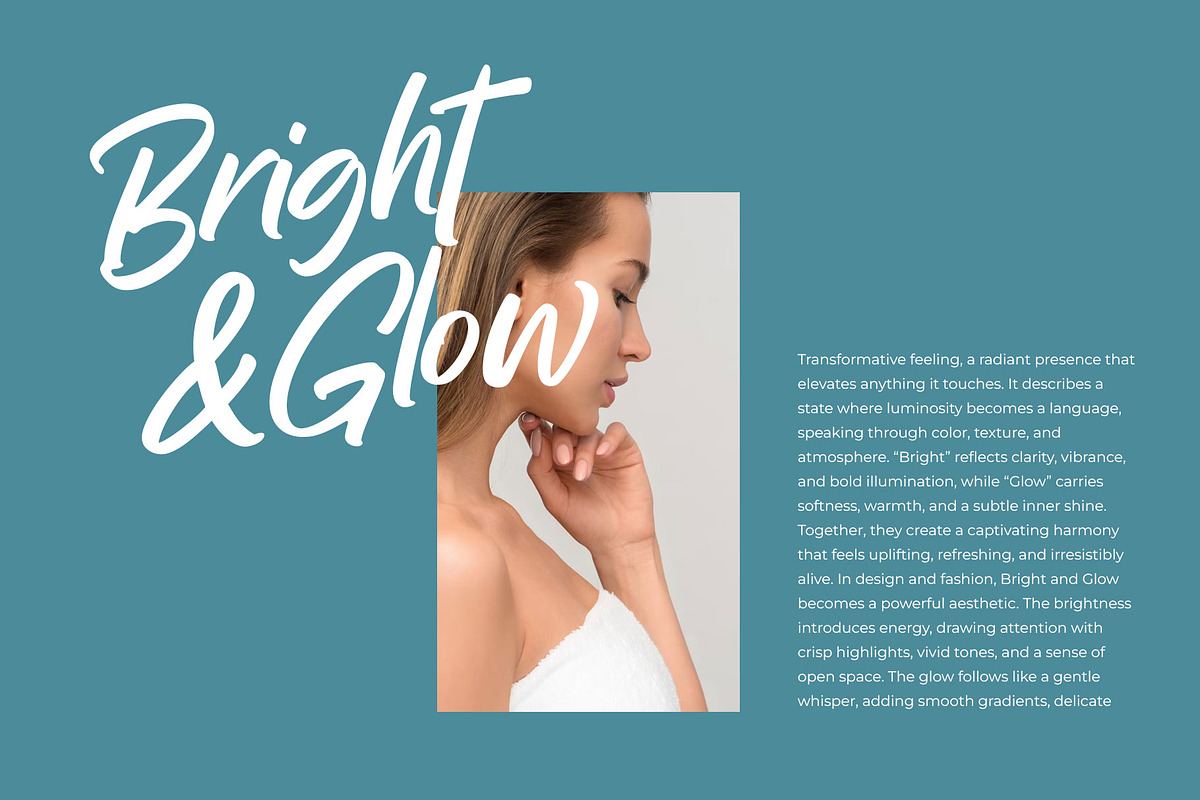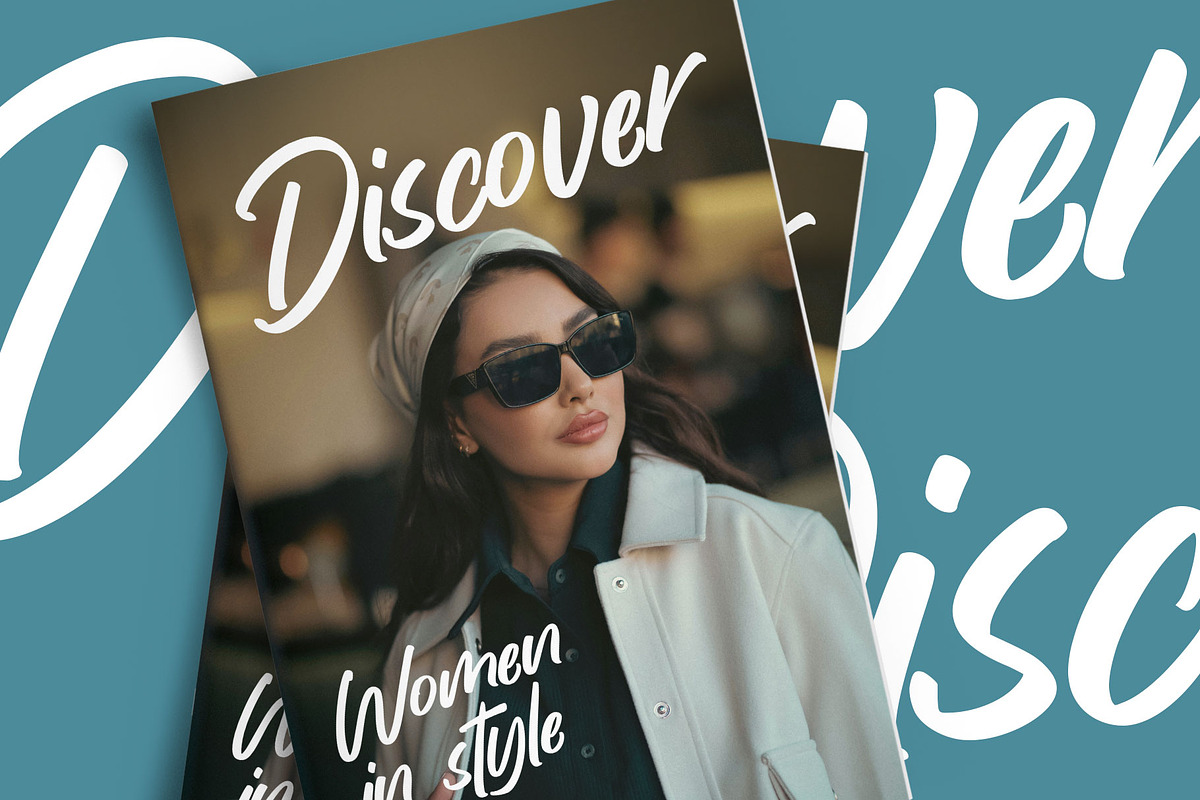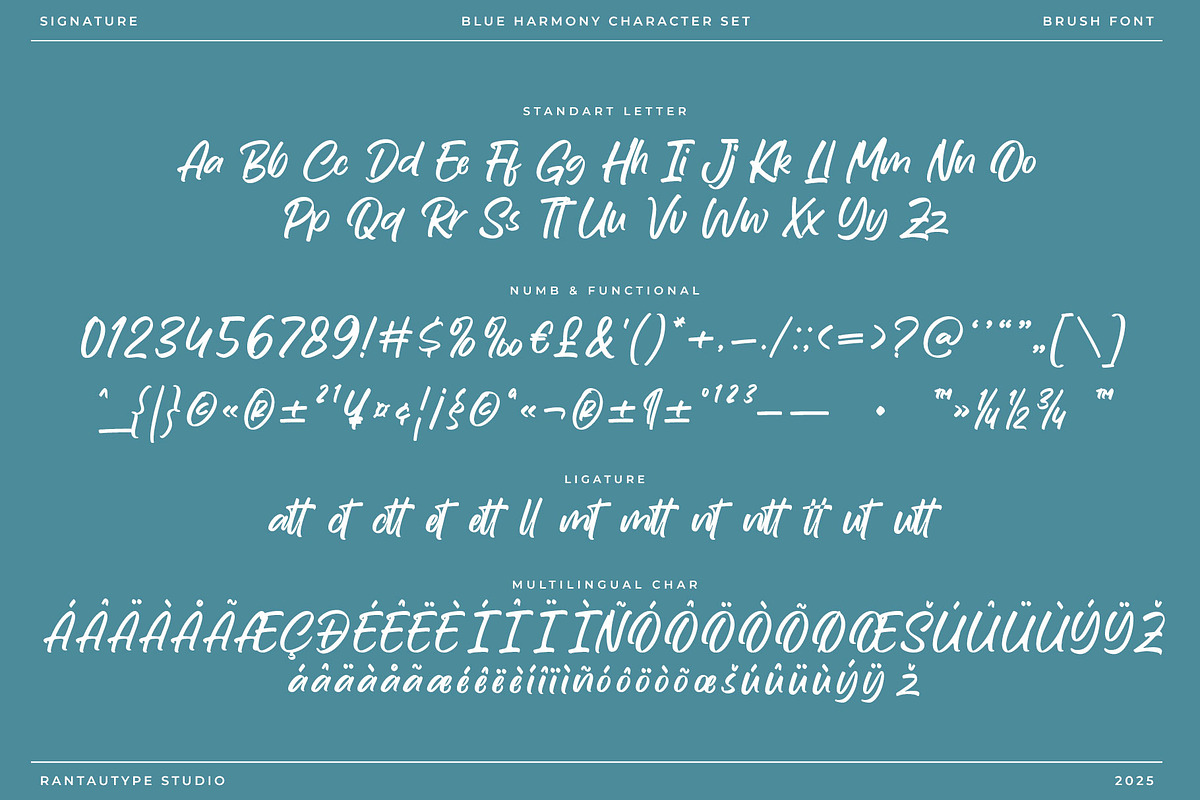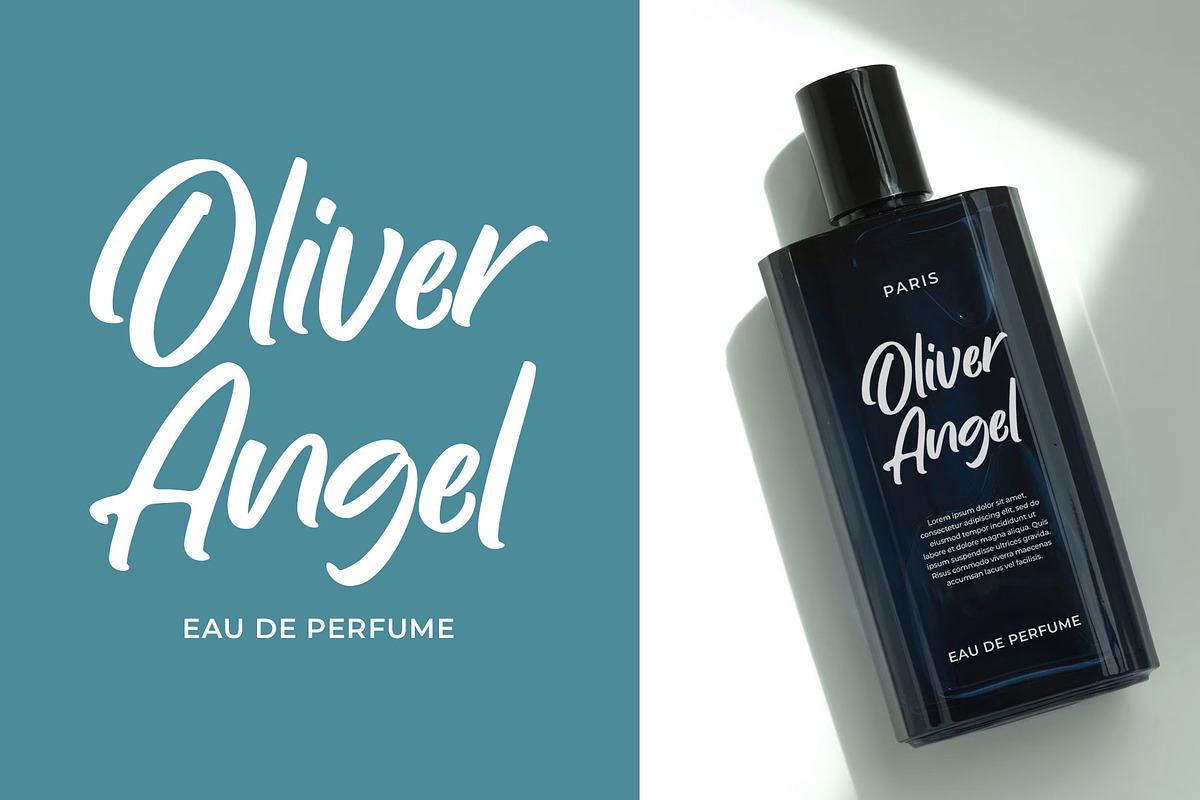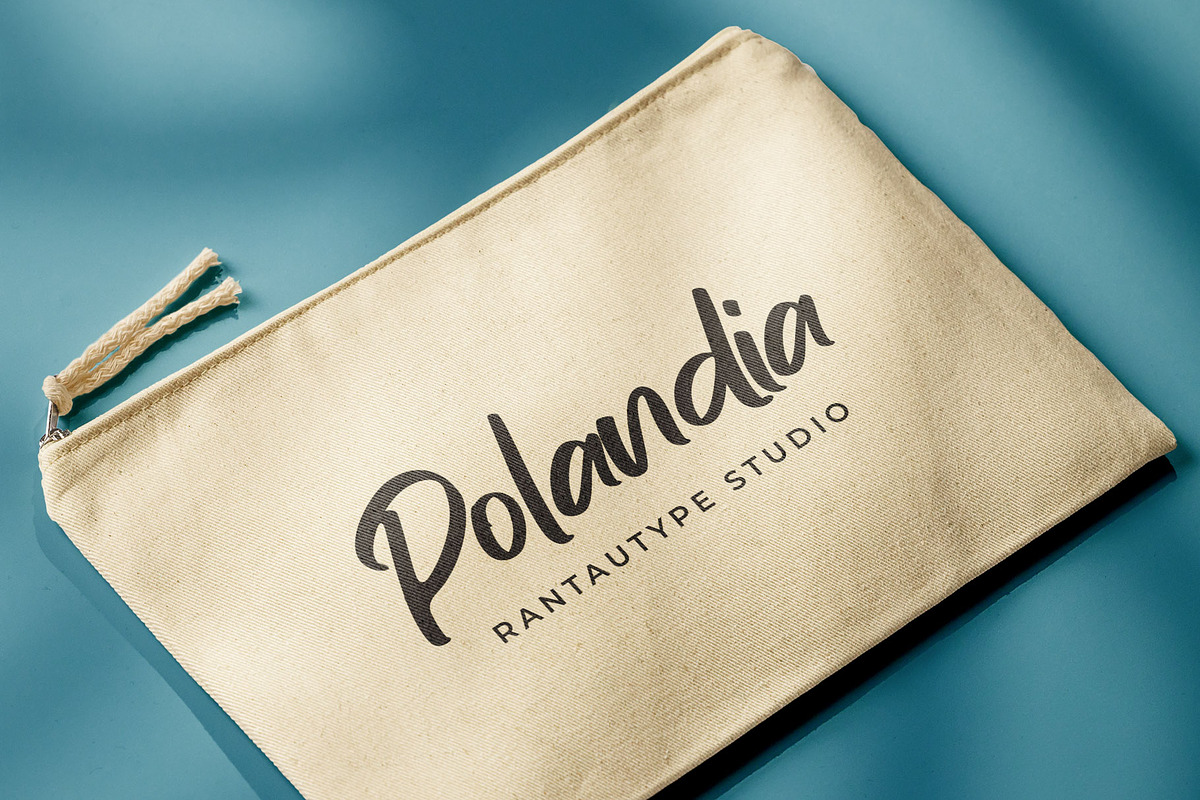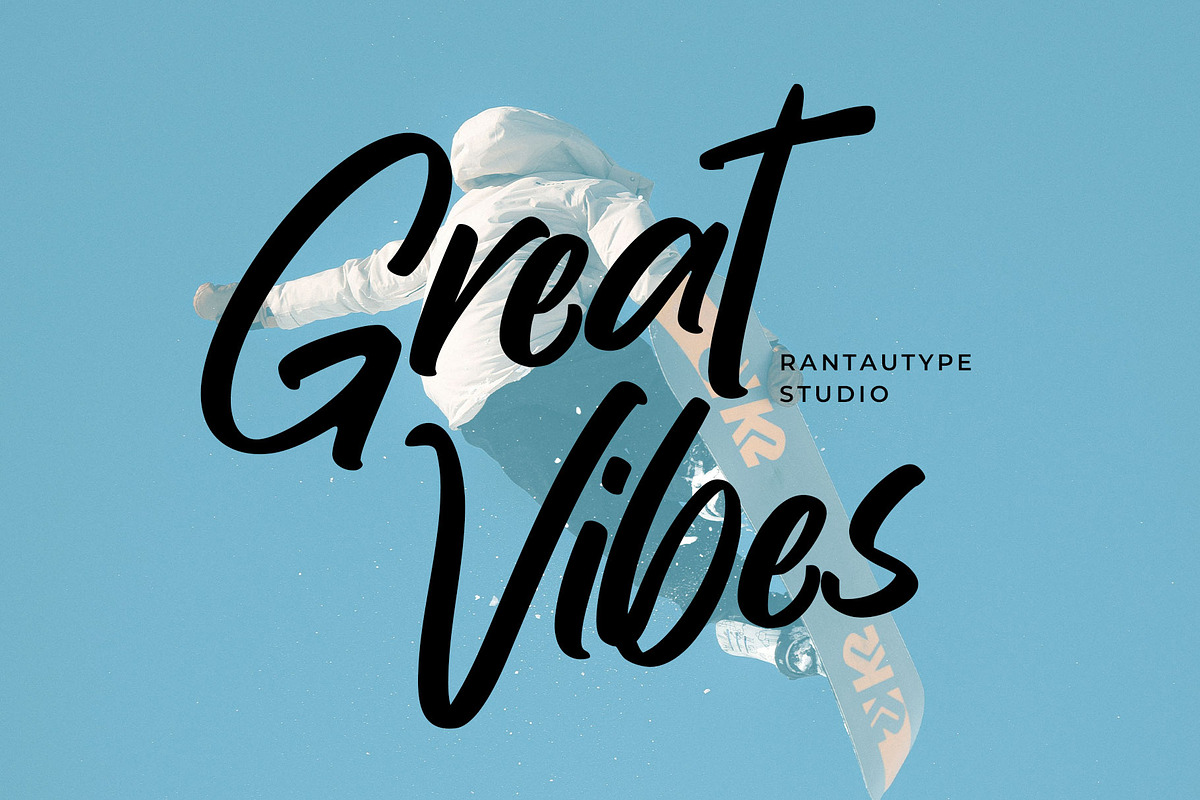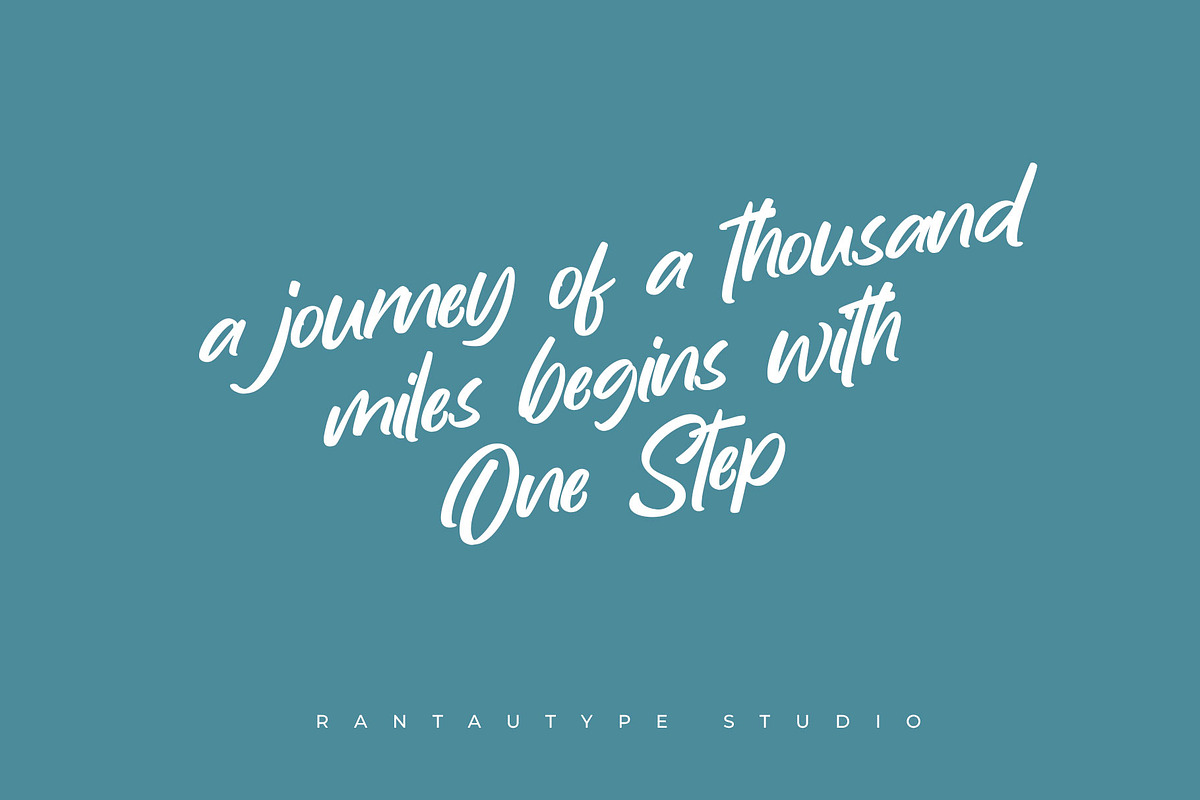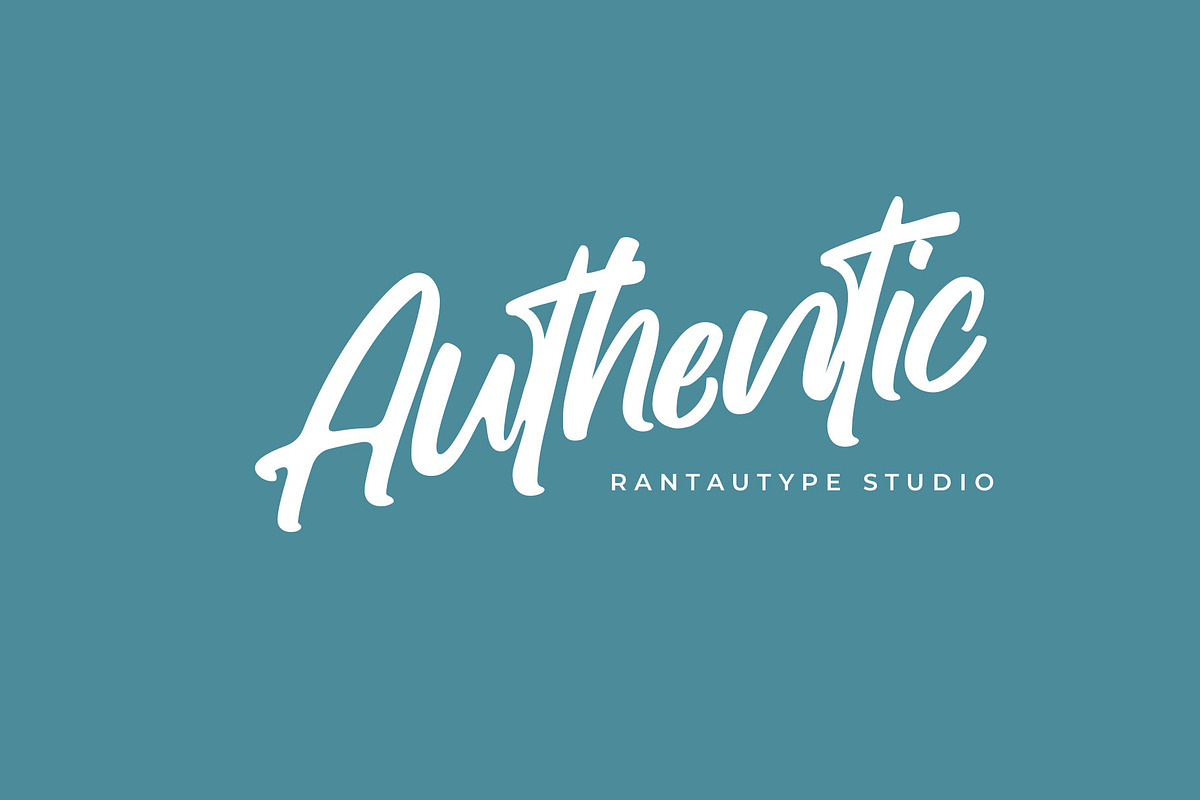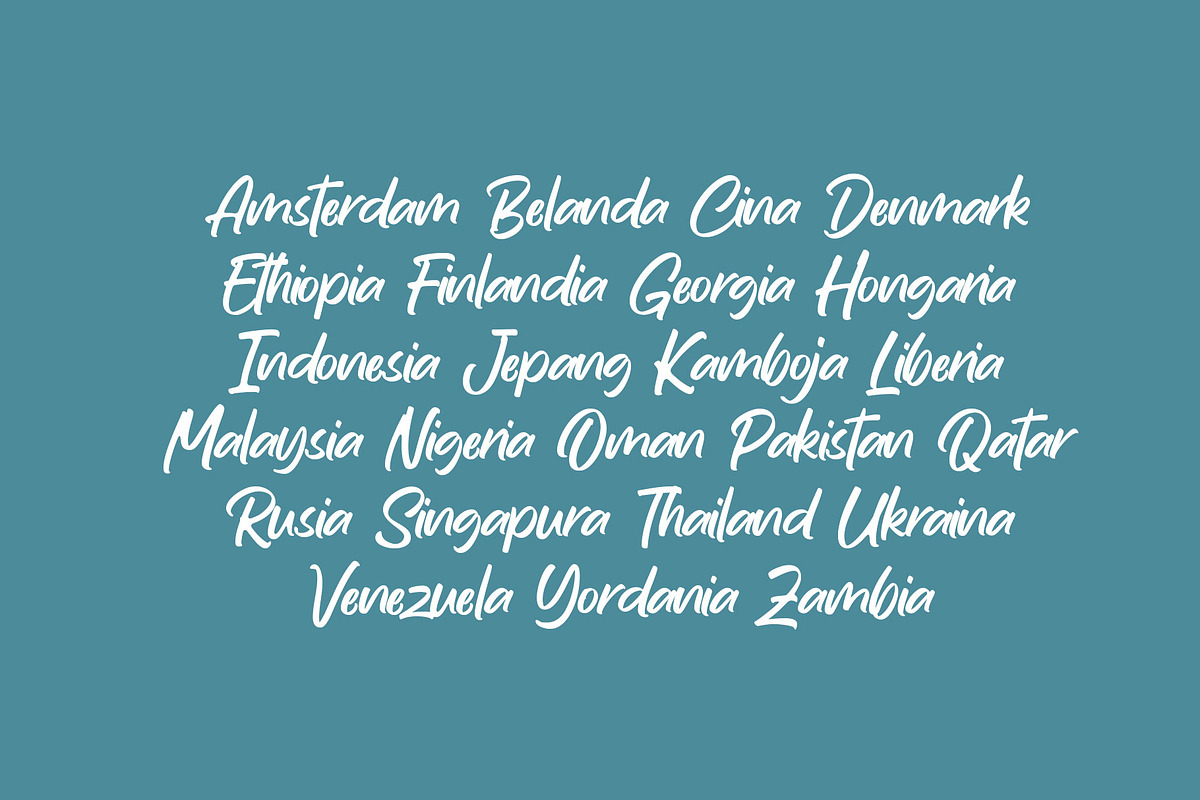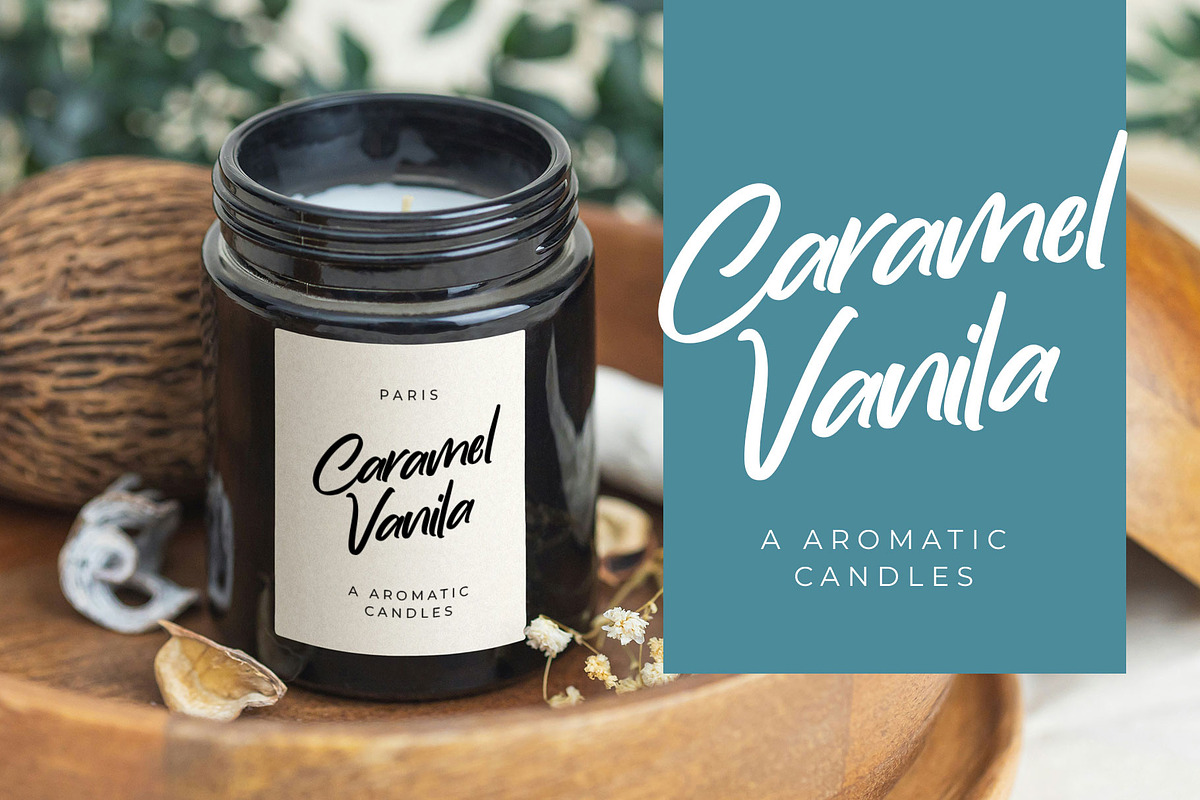
Blue Harmony Modern Script Font
Blue Harmony is a warm, expressive typeface that brings handwritten charm into modern design. It captures the effortless flow of natural handwriting smooth, relaxed, and elegantly imperfect creating a visual tone that feels friendly, personal, and approachable.
Blue Harmony is a perfectly choice for any creative endeavor, creating, modern, lifestyle design such as logotype, title, cover, branding, invitations, wedding designs, display and magazine, social media posts, advertisements, printed quotes, product packaging, corporate brand, product designs, labels, photography, watermarks, special events and any other project with modern touch.
- Alternate and ligature
Fonts include Multilingual Character for: Afrikaans, Albanian, Asu, Basque, Bemba, Bena, Breton, Chiga, Cornish, Dutch, English, Estonian, Filipino, Finnish, Friulian, Galician, Gusii, Indonesian, Irish, Italian, Kabuverdianu, Kalenjin, Kinyarwanda, Luo, Luxembourgish, Luyia, Machame, North, Oromo, Portuguese, Quechua, Romansh, Rombo, Rundi, Rwa, Samburu, Sango, Sangu, Scottish, Gaelic, Sena, Shambala, Shona, Soga, Somali, Spanish, Swahili, Swedish, Swiss, German.